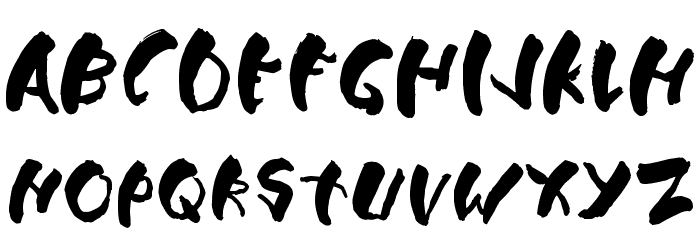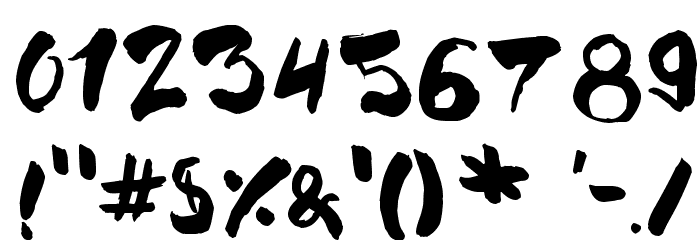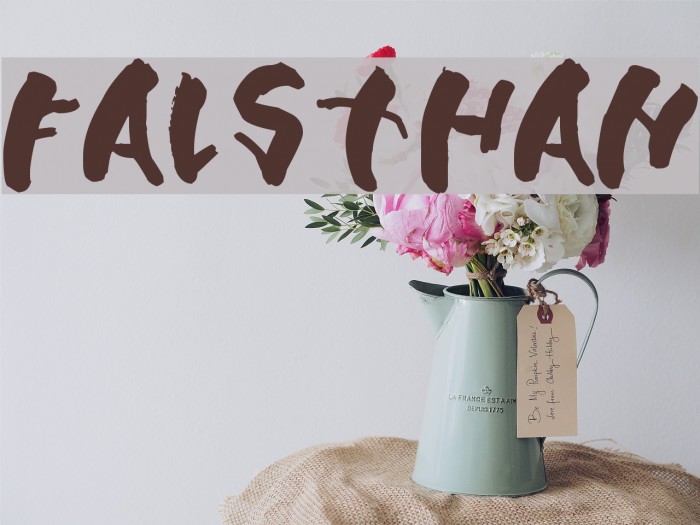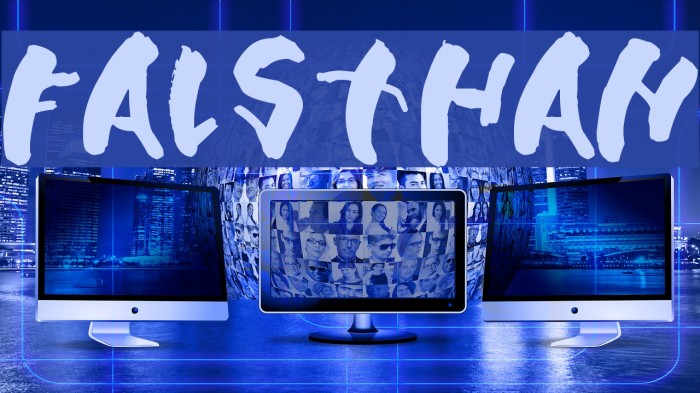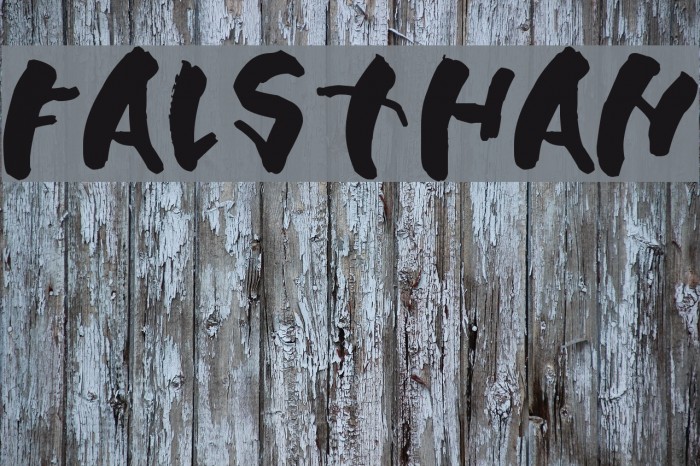
Falsthan Font
This font features a bold, expressive style with a hand-painted appearance. The characters are thick and dynamic, with irregular edges that give a sense of movement and energy. The uppercase and lowercase letters maintain a consistent style, with a slightly condensed form that emphasizes their boldness. Numbers and special characters follow the same aesthetic, ensuring a cohesive look across all elements. The brush-like strokes create a textured effect, adding depth and personality to the text. This font is ideal for projects that require a strong visual impact and a touch of artistic flair.
A bold, hand-painted style font with dynamic, textured strokes.
- Proposed Projects: Ideal for posters, branding, album covers, and artistic projects requiring a bold statement.
- Overall Style: Artistic, Expressive